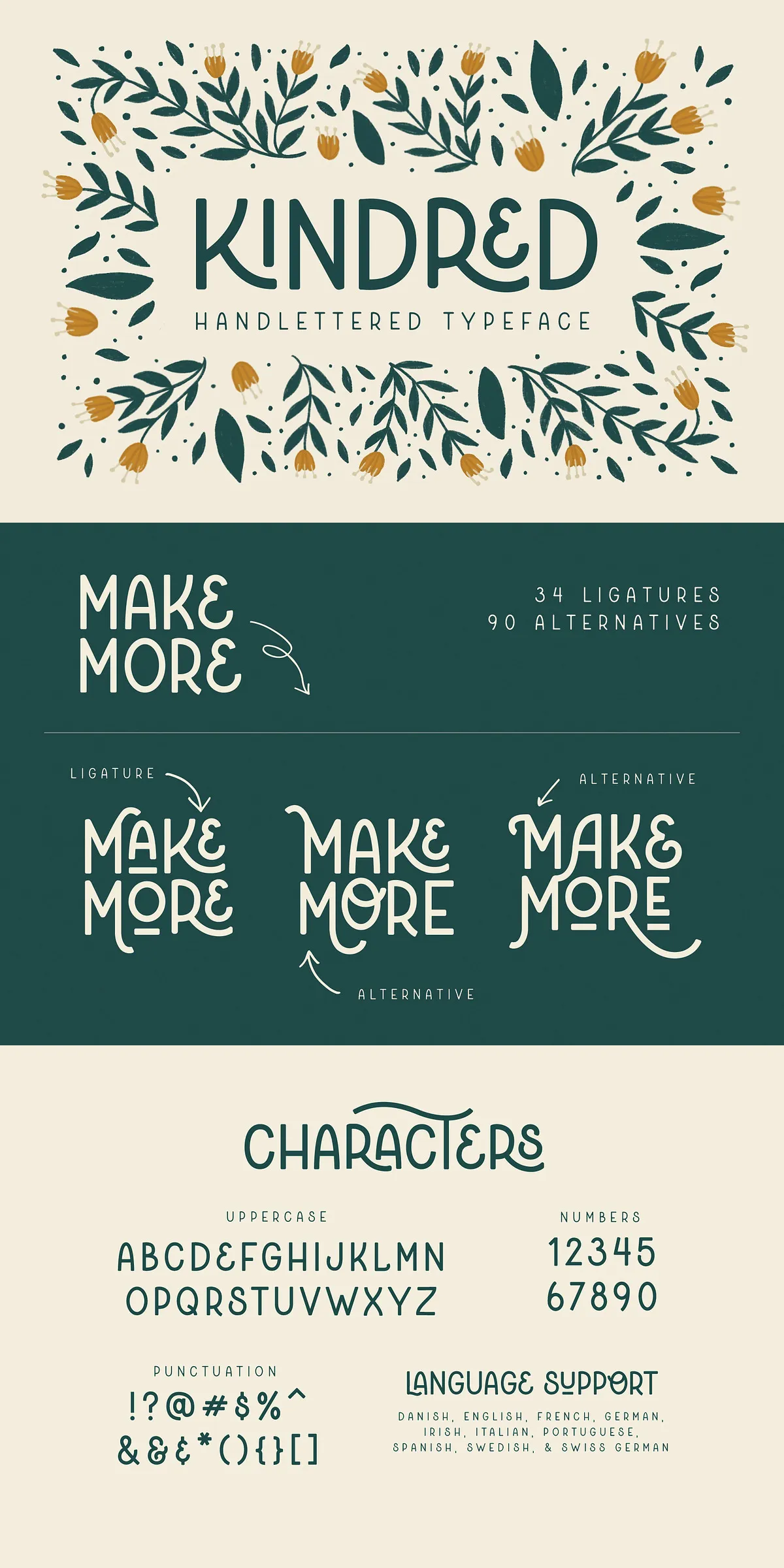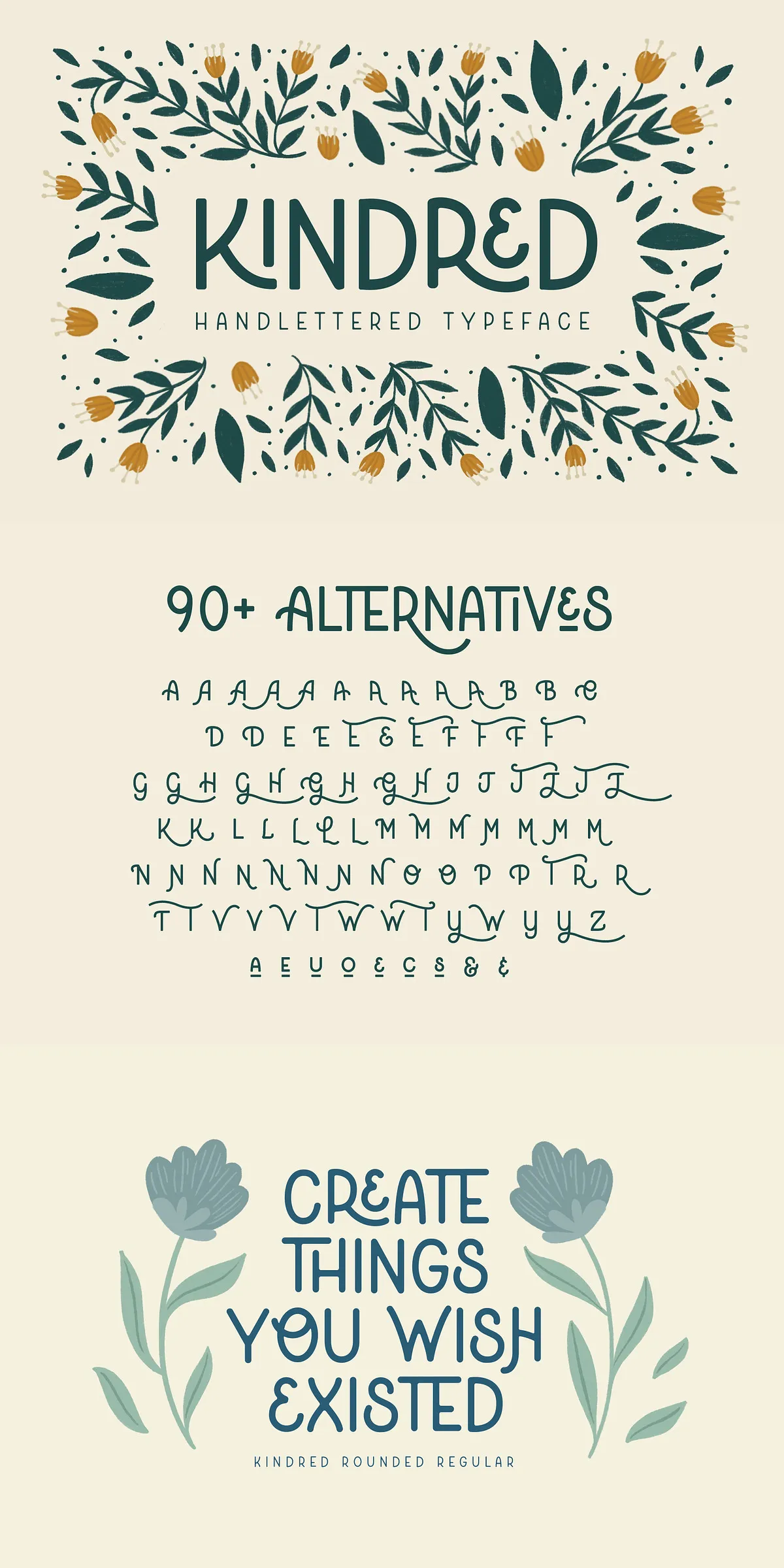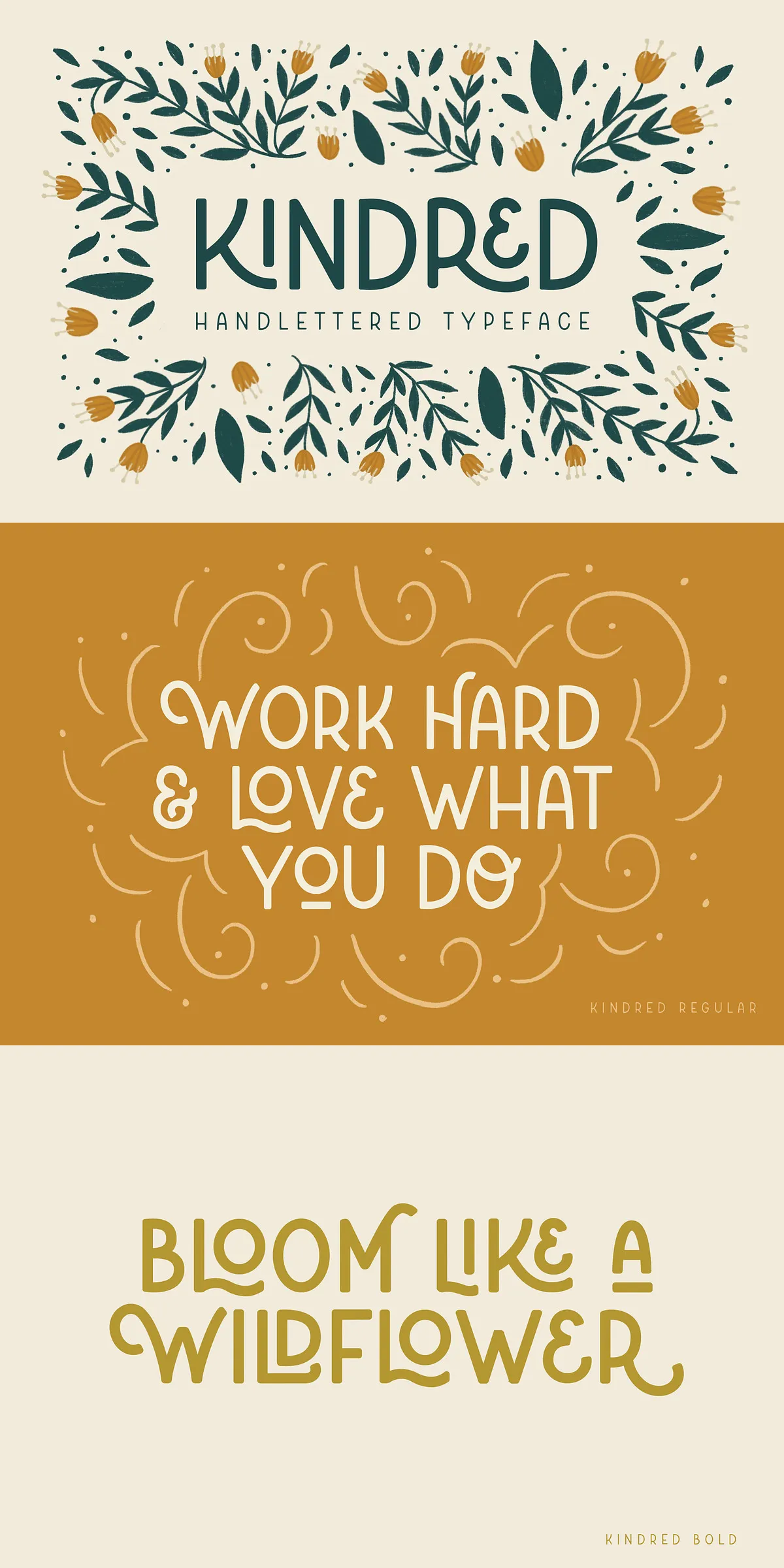
Kindred Handlettered Typeface
Step into the next level of expressive typography with Kindred — a living, breathing sans serif typeface that captures the soul of handmade artistry. Every curve, every swash, every gentle transition is designed to reflect the warmth and authenticity of hand-drawn lettering. Unlike cold, mechanical fonts, Kindred feels alive — like it was sketched with care, not generated by code.
Rooted in Craft: The Art of Hand-Lettered Design
Kindred isn’t just inspired by hand lettering — it becomes it. The font mimics the natural flow of pen on paper, with letters that seamlessly connect, swirls that dance, and subtle variations that prevent rigidity. This isn’t about uniformity. It’s about personality. It’s about making your message feel intentional, human, and real.
The soft, slightly rounded corners give it a welcoming, approachable presence. The letterforms aren’t locked into strict geometry — they breathe. They breathe like a sketch that’s been preserved, not erased. This organic fluidity adds emotional weight to every word, making it ideal for brands that value emotion, connection, and storytelling.
Unlocking Creativity: A Toolkit of Expressive Tools
Kindred isn’t just beautiful — it’s custom-ready. With over 90 stylistic alternatives and 34 default ligatures, every word can be uniquely tailored to your vision. Here’s how:
• Smart Ligatures (34 total) — Activated by default, these create hand-drawn connections between letters, like “fi”, “fl”, or “th”, blending seamlessly into natural strokes. They eliminate awkward gaps and give the text cohesion, as if handwritten by one artist.
• 90+ Alternates — Swap out letters, change terminals, tweak double letters (like “ll” or “oo”), or add decorative swashes that curve around neighboring characters. Use them to break repetition, add rhythm, or enhance visual drama.
• 6 Distinct Styles — Choose from Light, Regular, Bold, Rounded Light, Rounded Regular, and Rounded Bold. Mix and match styles within a single project for dynamic contrast. A bold headline with a light body text? Yes, please.
Designed for Real-World Impact: Where Kindred Shines
Whether you’re crafting a brand identity, designing a social media post, or creating marketing materials, Kindred adapts to your purpose with effortless grace:
Branding That Feels Like a Story
Build brands with soul. Kindred is perfect for lifestyle, wellness, creative agencies, artisanal products, or eco-conscious labels. It says, “we care,” without saying a word. Its soft touch resonates deeply with audiences who value craftsmanship over mass production.
Social Media & Content Marketing
Stand out in a crowded feed. Use Kindred with bold colors or layered textures to draw attention. The hand-drawn flair makes your captions, quotes, and product tags feel personal — like someone wrote it just for the viewer.
Marketing Campaigns & Visual Communication
Create visuals that engage, not just inform. From email headers to posters, Kindred delivers emotional punch. Use alternates to create subtle movement across a design. The swashes and ligatures guide the eye, giving your message rhythm and flow.
Technical Strength. Creative Freedom.
Kindred is a powerhouse behind the scenes — professional, scalable, and designed for seamless integration into any workflow.
• 281 Glyphs — Covers uppercase, numbers, punctuation, currency, diacritics, and multilingual characters.
• Full OpenType Support — Leverage stylistic sets, contextual alternates, and ligature controls via any design software (Adobe Illustrator, InDesign, Figma, etc.).
• Rich Language Support — Fully supports Danish, English, French, German, Irish, Italian, Portuguese, Spanish, Swedish, and Swiss German — ideal for international projects.